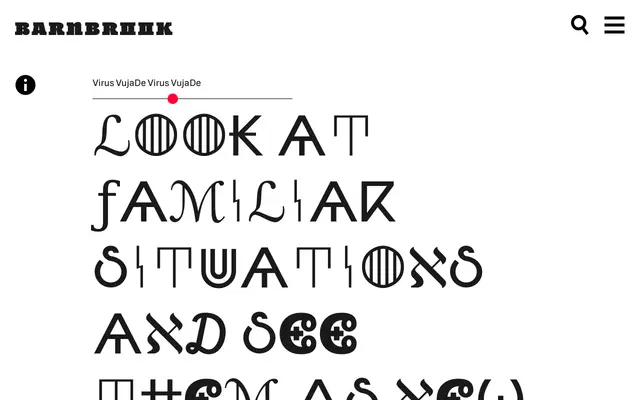
Virus VujaDe
An open-source display typeface built for the Kyiv Biennale 2012 that cycles through four alternating glyphs per character, drawn from the DejaVu font's extended glyph palette.
Constructed by remixing the DejaVu open-source font, each Latin and Cyrillic letter or numeral is given four alternating glyph variants drawn from analphabetic characters, foreign scripts and symbols. As the user types, the font sequences through these variants automatically, producing unexpected juxtapositions that read as typographic interference. Developed as the typographic voice of Arsenale 2012, the project deliberately prioritised collaborative, open-source thinking over polished aesthetics.
A display typeface built from remixed glyphs drawn from DejaVu, combining symbols, foreign scripts and analphabetic characters to produce sequentially alternating letterforms. Its experimental, disorienting character places it firmly in the display category.